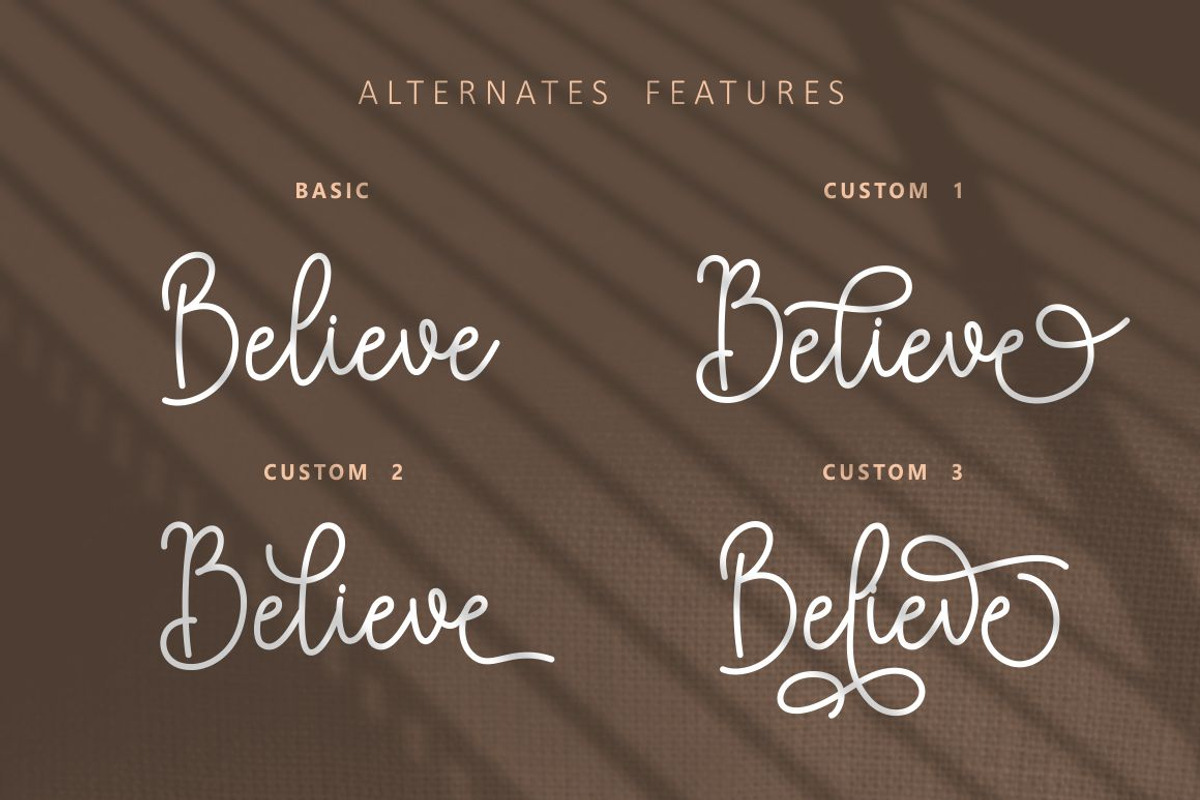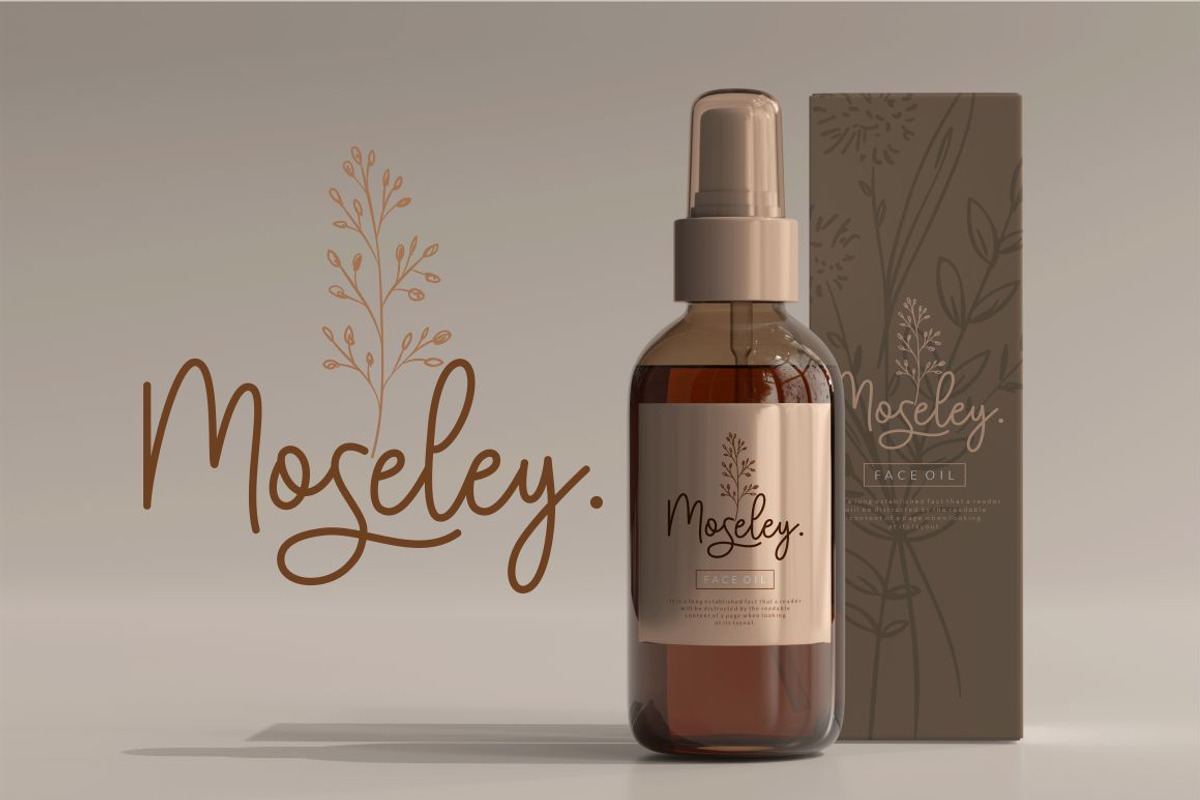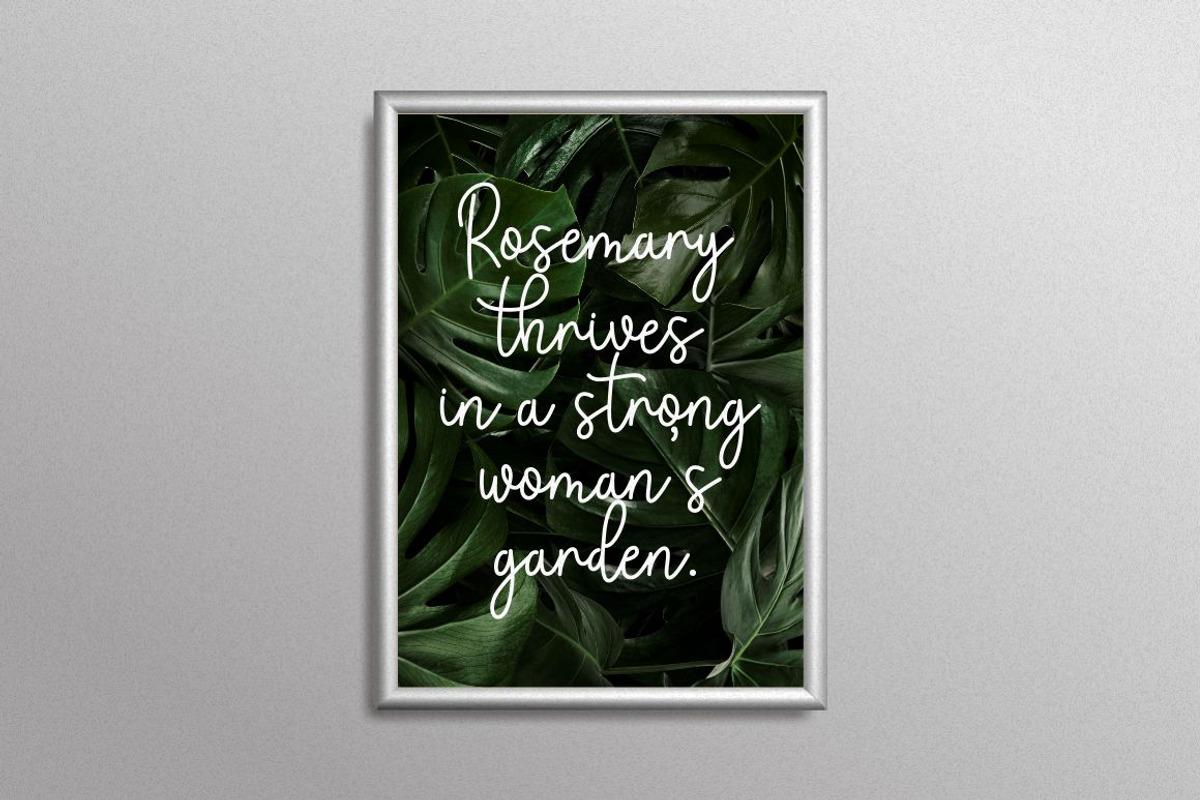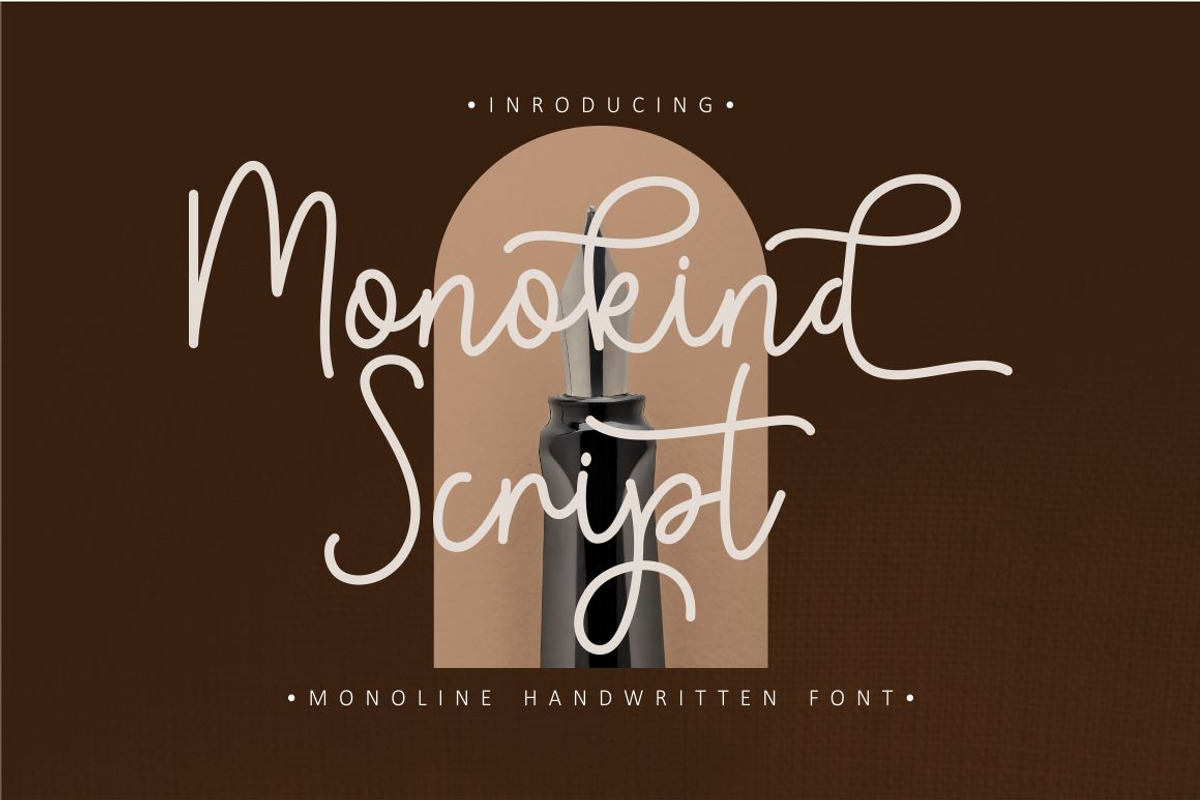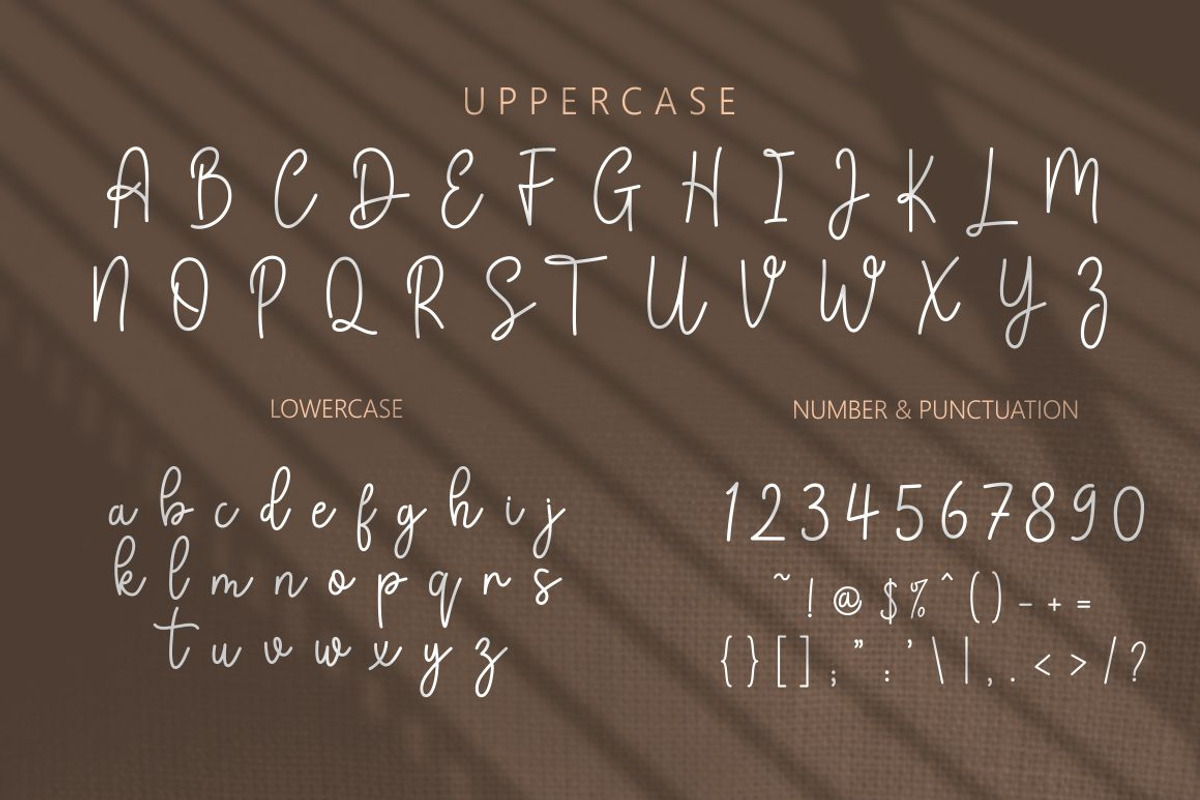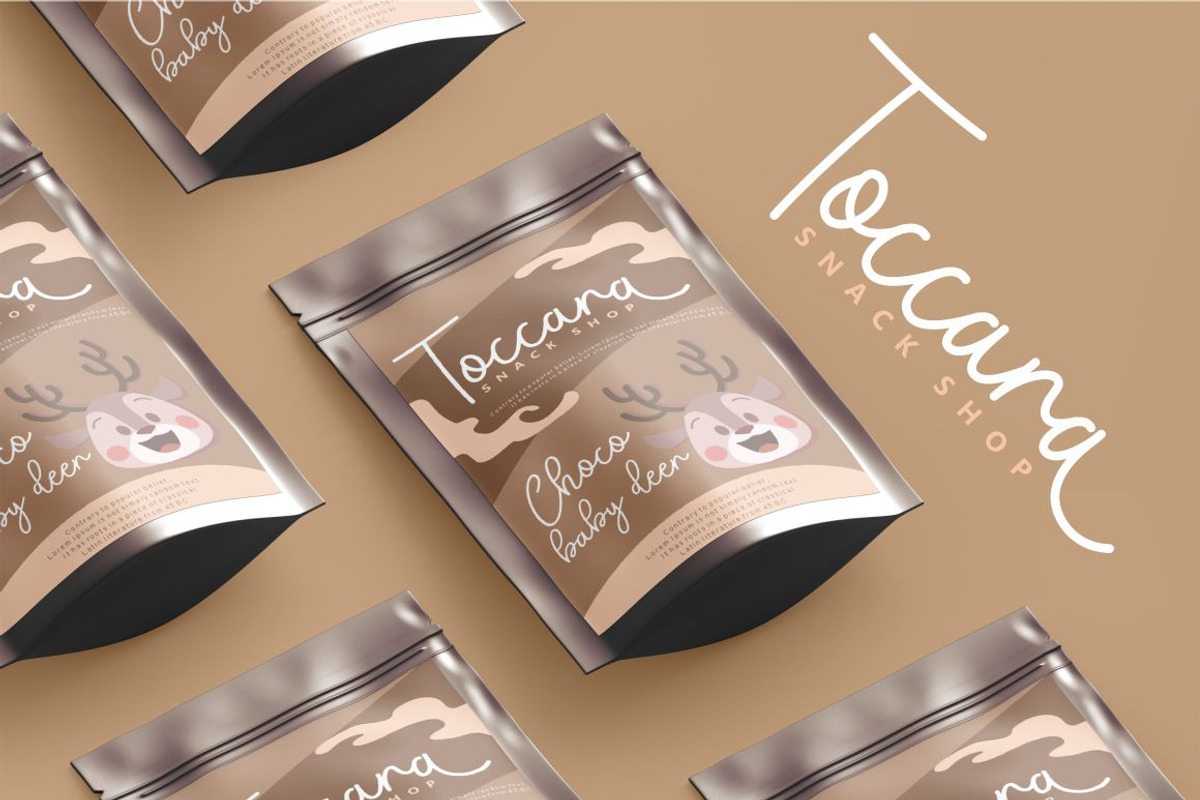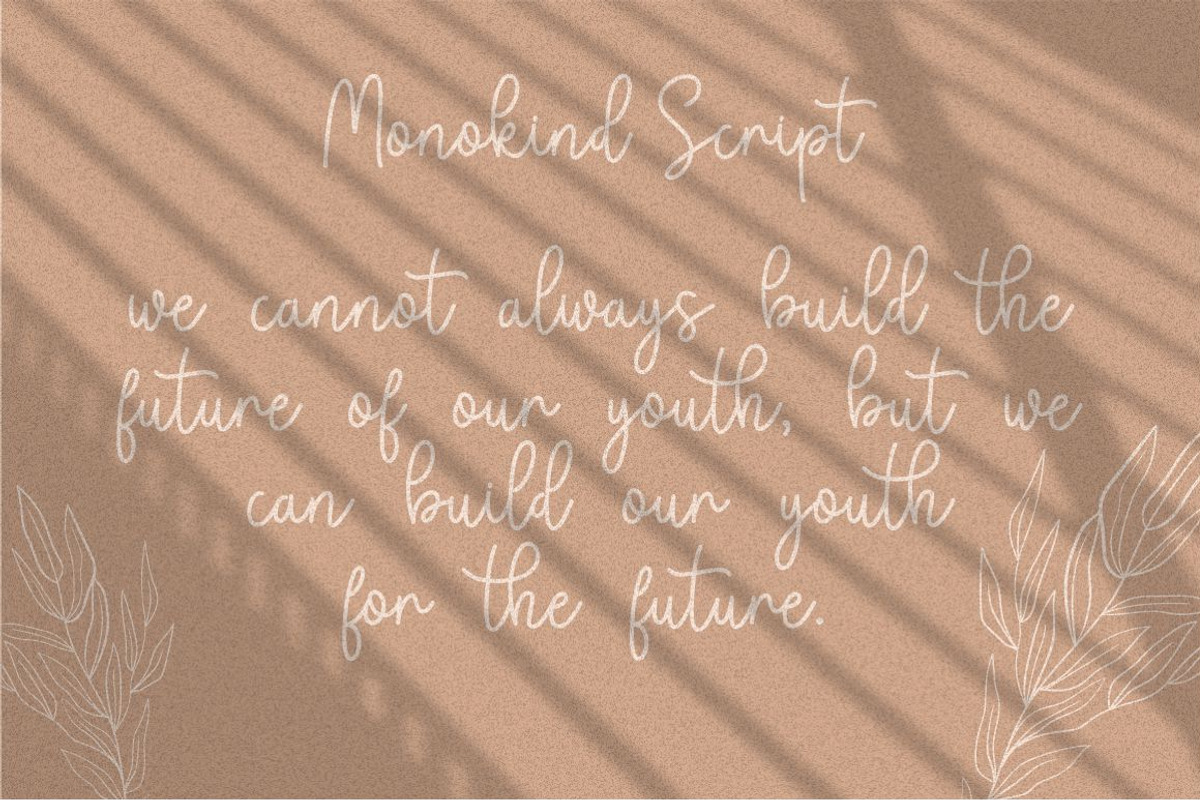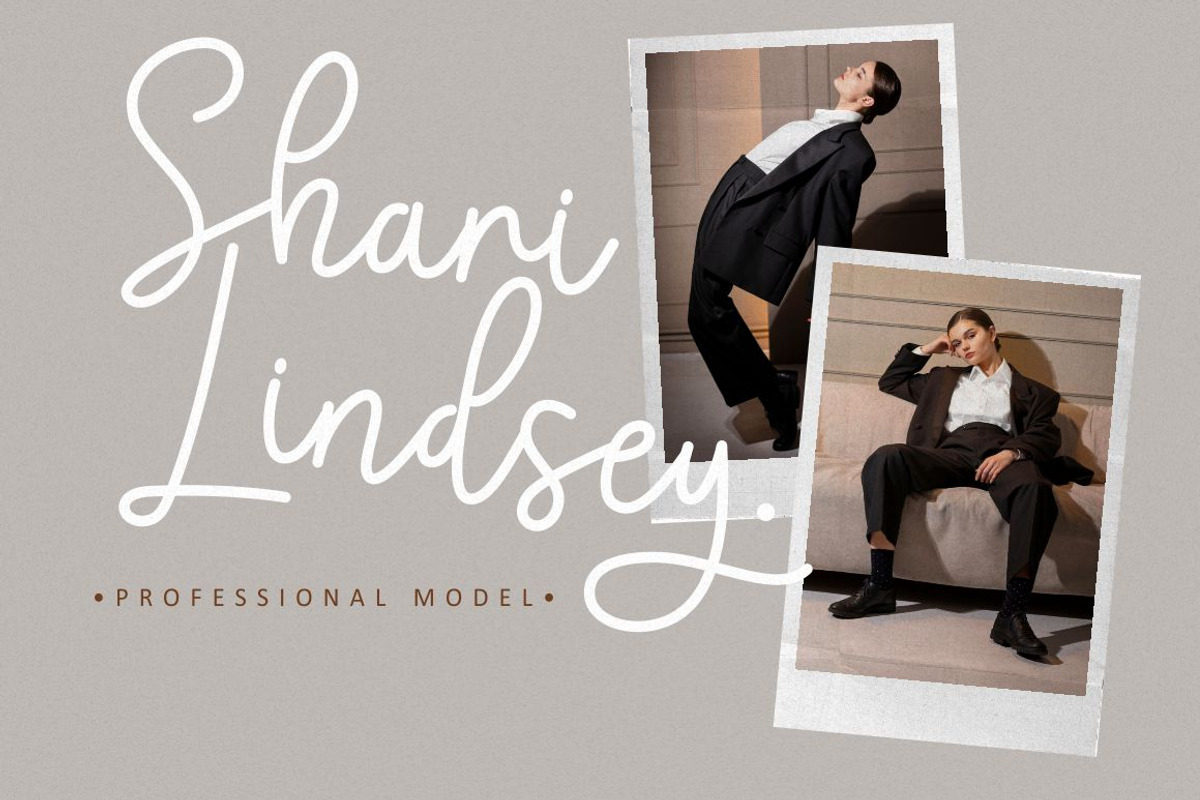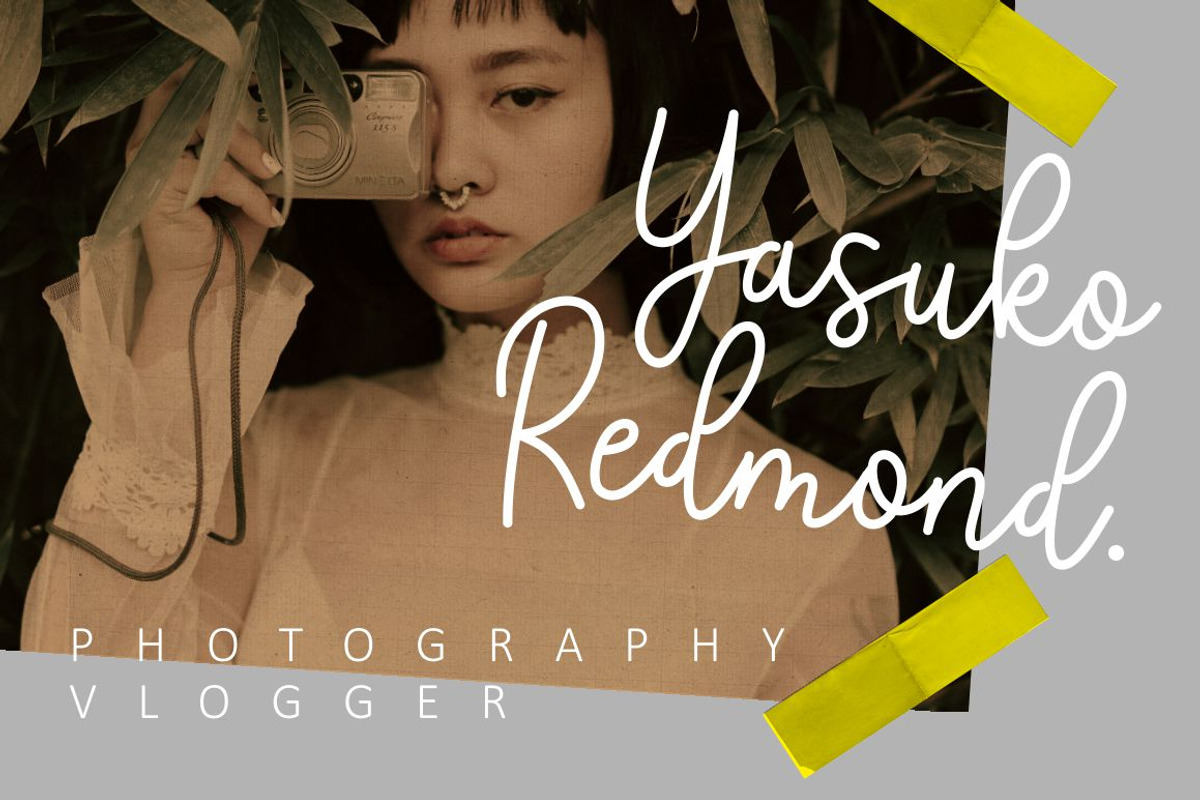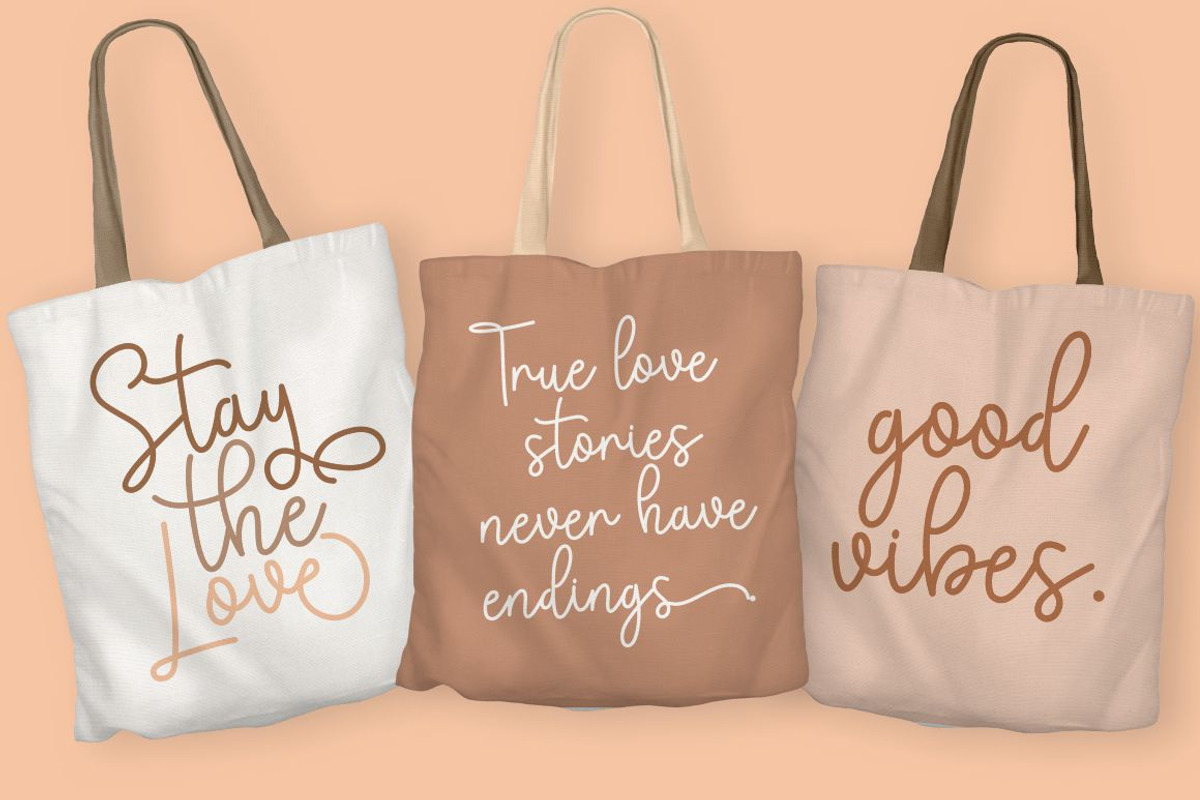
Monokind Script - Monoline Font
Monokind Script
Monokind Script is a elegant monoline handwritten font. A handwritten with elegant style make this font looks natural and perfect for any projects that need handwriting taste. Come with open type feature with a lot of alternates, it's help you to make great lettering. Monokind Script perfect for signature, quote, branding, wedding invite and card, elegant logo, poster, packaging, stationery, website, and many more. This font also support mulilanguage.
Comes with feature :
- Alternate & Ligature
- Numerals And Punctuations
- Multilanguage Support.